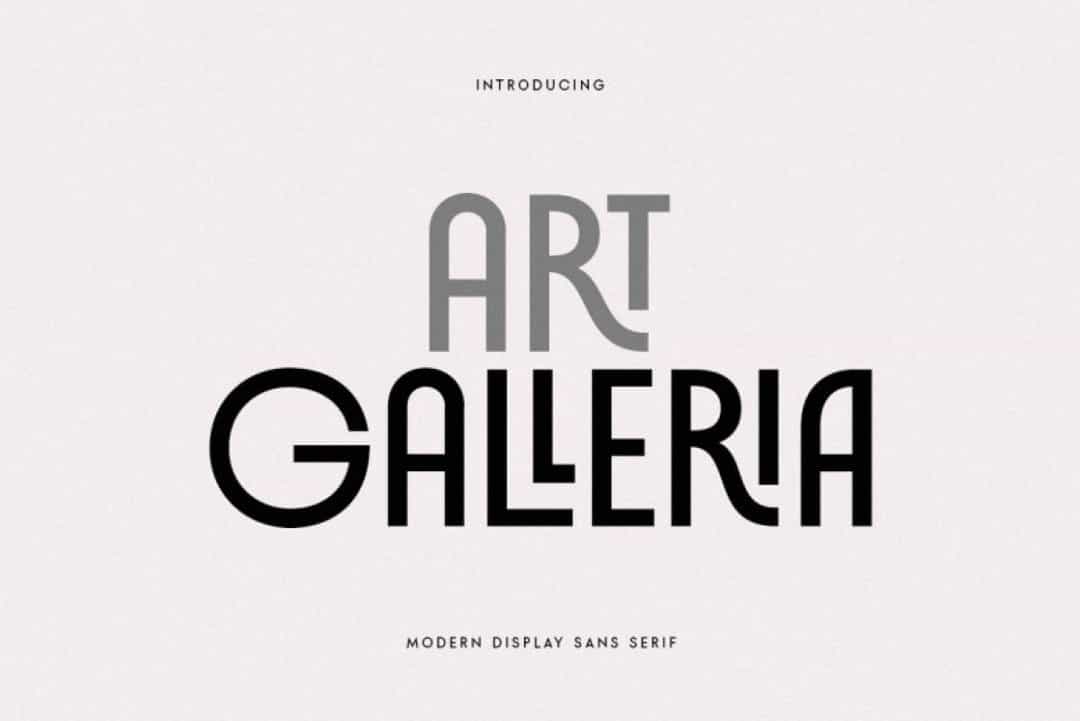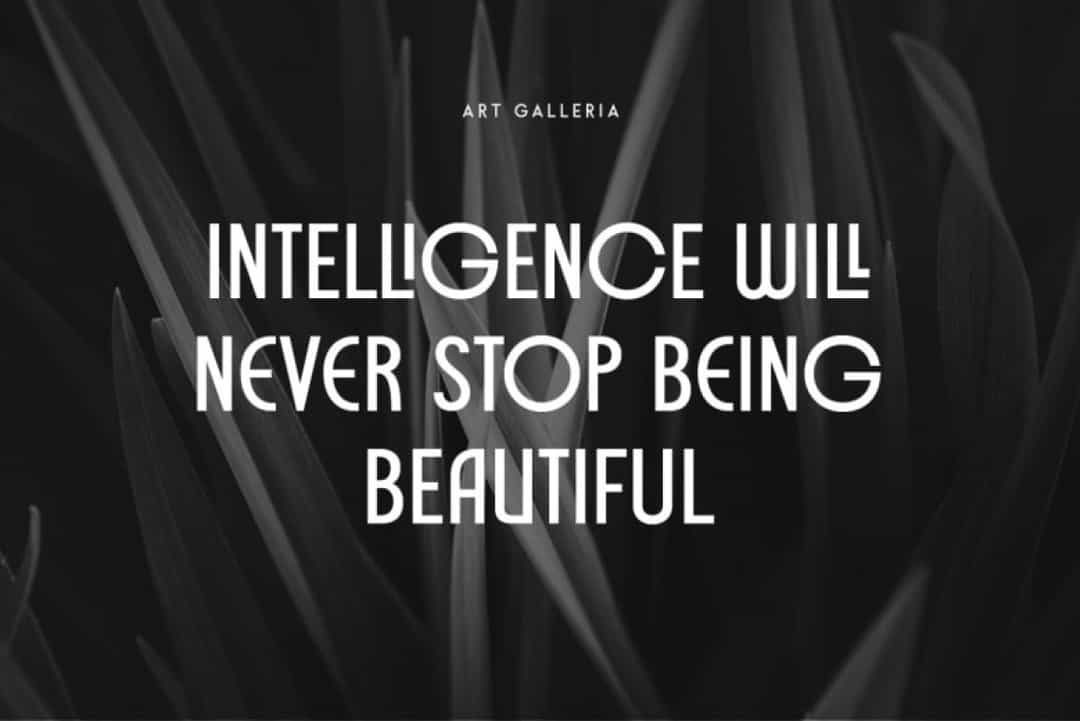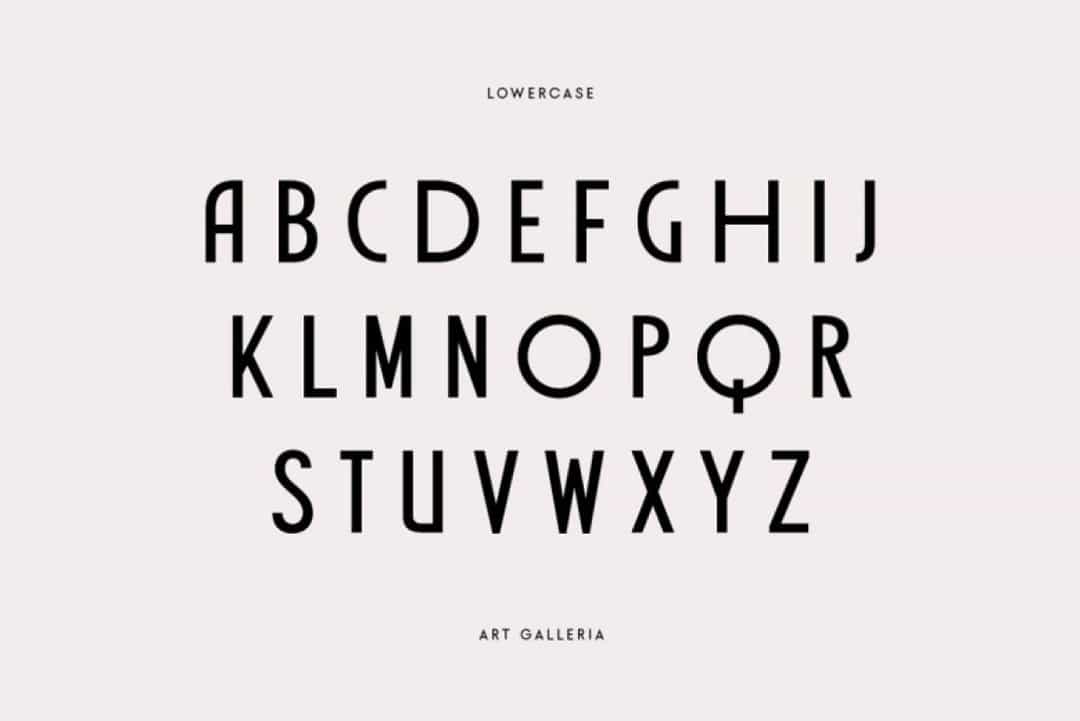
Art Galleria is a Modern Display Sans-Serif font designed specifically to meet branding requirements and features a ligature for added value to your brand. With Art Galleryeria you can leverage designers or owners of products who need ways to modernize and distinguish their look while simultaneously adding value.